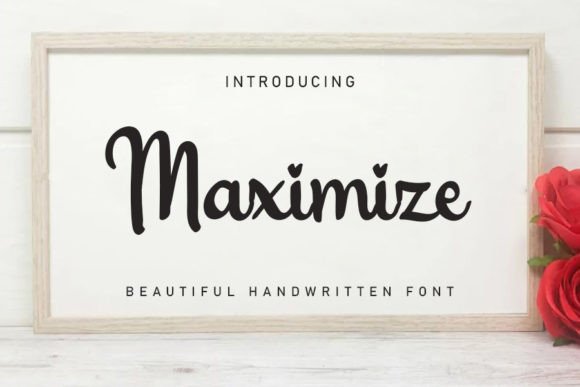
Behold, Maximize – an exquisite script font ready to enchant your designs with its allure. Step into a realm where elegance and beauty intertwine, where your words dance upon the page, leaving a trail of awe-inspiring aesthetics.
Immerse yourself in the allure of Maximize, the font family that captures the essence of femininity and grace. Its meticulously crafted curves and delicate strokes evoke a symphony of emotions, leaving your creations exuding an air of timeless sophistication.
With Maximize, the ordinary transforms into the extraordinary. Envision your wedding invitations adorned with this font, the names of your loved ones intertwining like a tapestry of affection. Its elegant presence will elevate your stationery, making each piece an heirloom to be cherished.
Unlock the door to endless creative possibilities. Picture your blog posts adorned with Maximize, its graceful lines guiding readers through your captivating words like a gentle whisper. Its charm will captivate them, leaving them yearning for more.
Maximize is not just a font; it's an experience. It's an opportunity to elevate your designs, to make them speak louder than words. As you watch your creations come to life, you'll discover the transformative power of this font, leaving you spellbound by its breathtaking beauty.